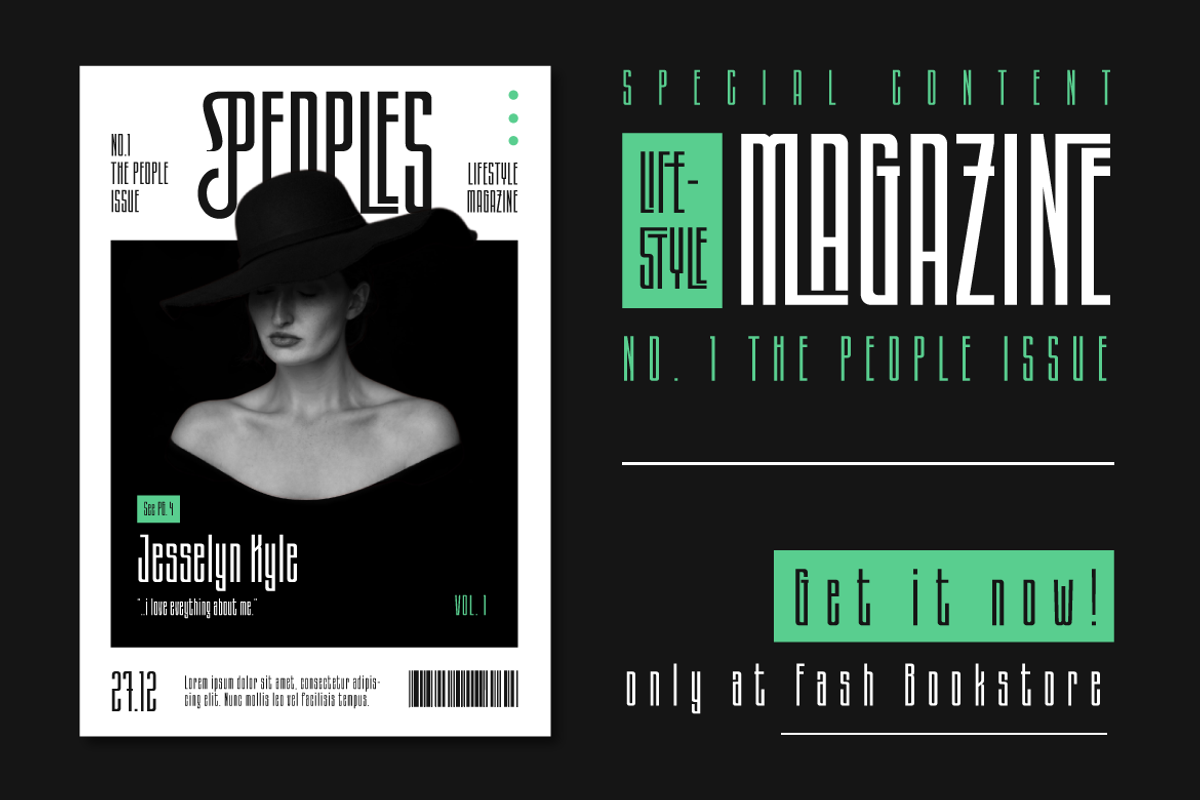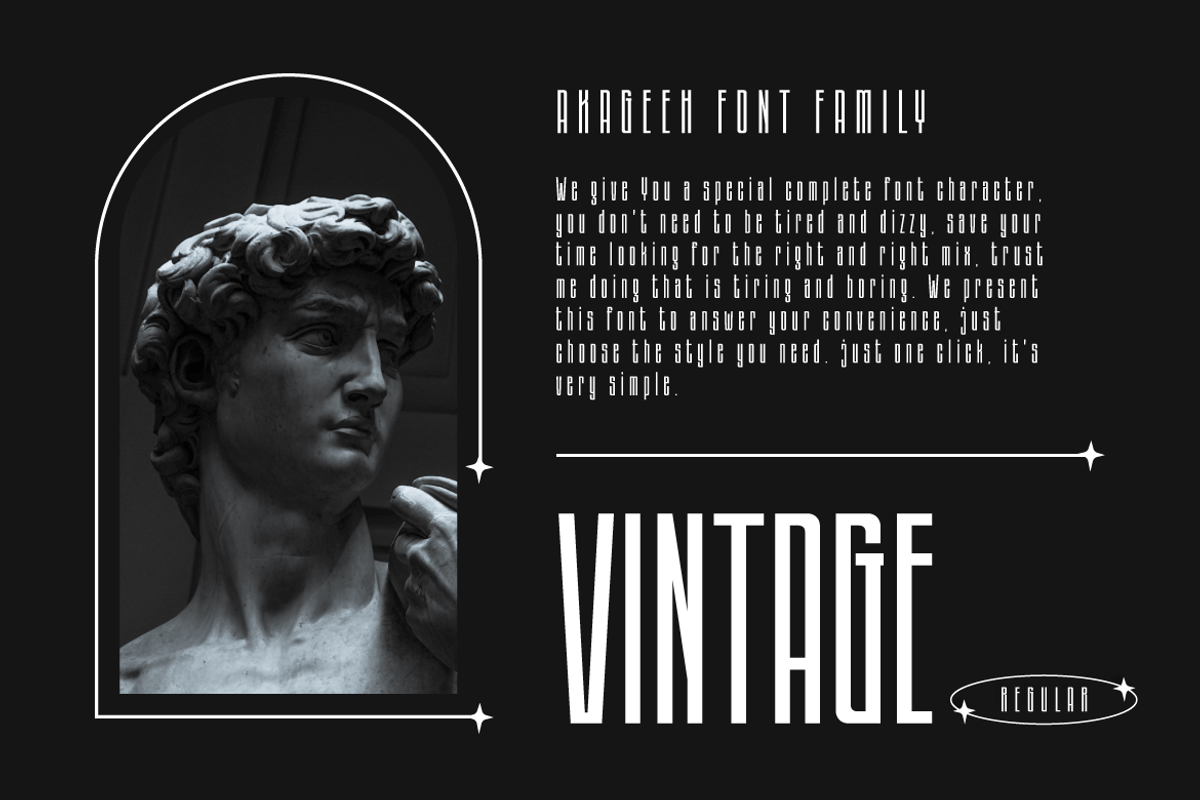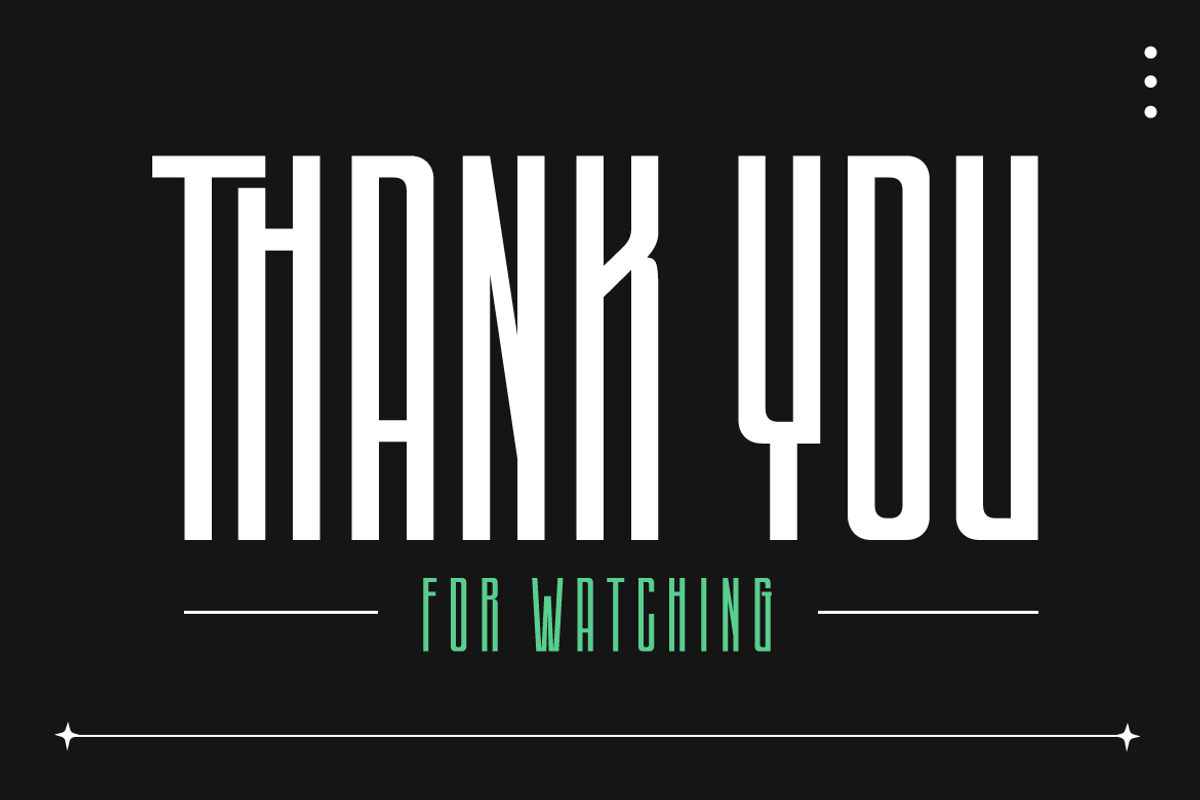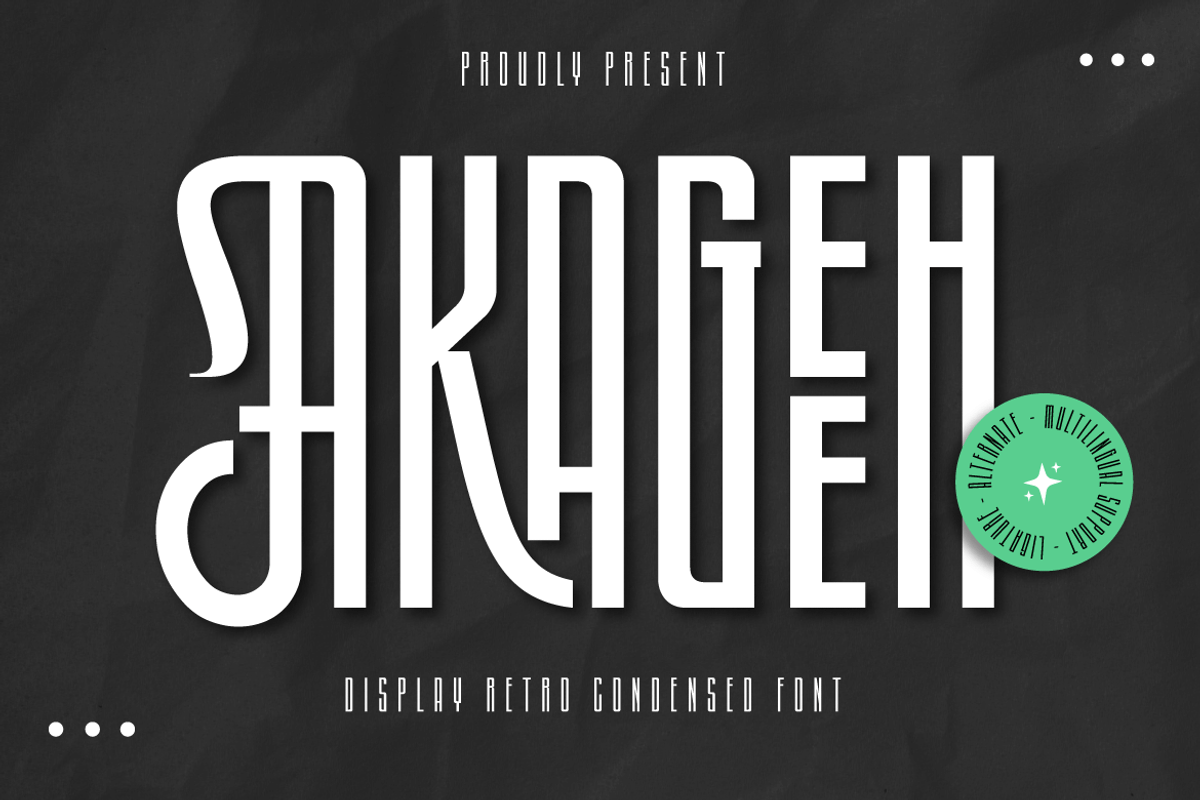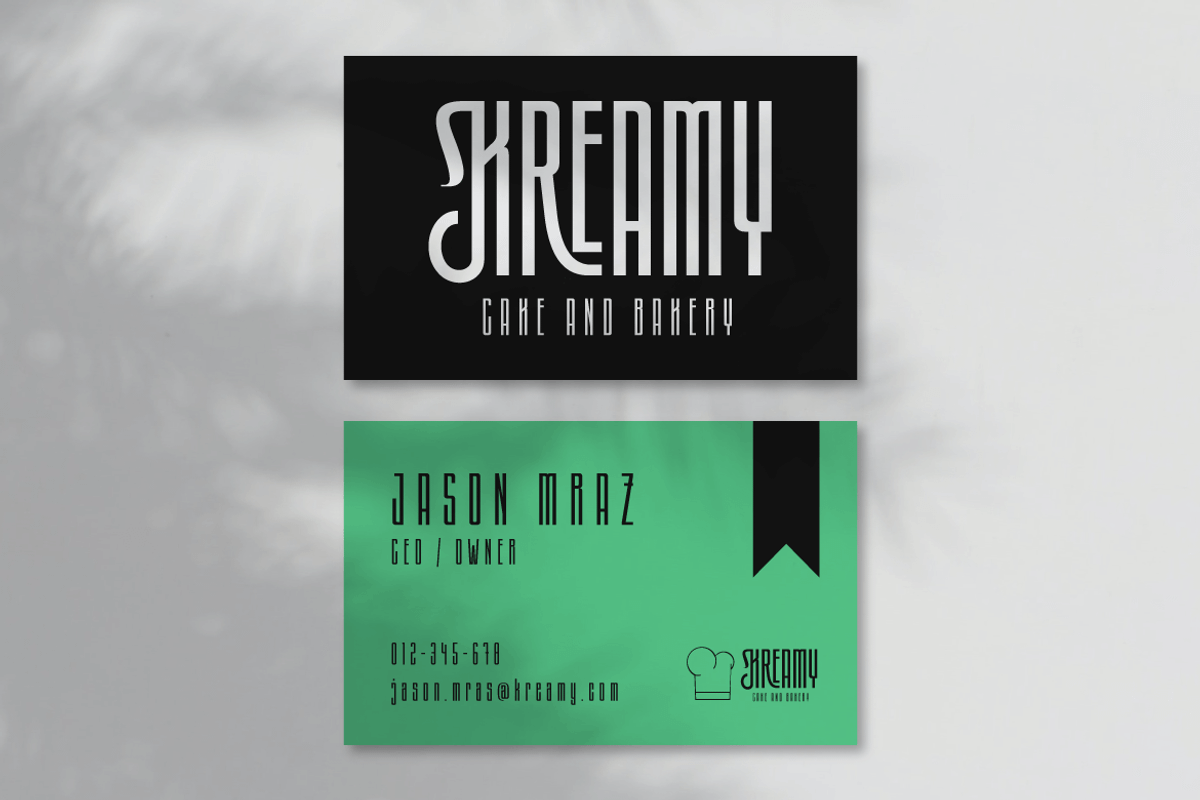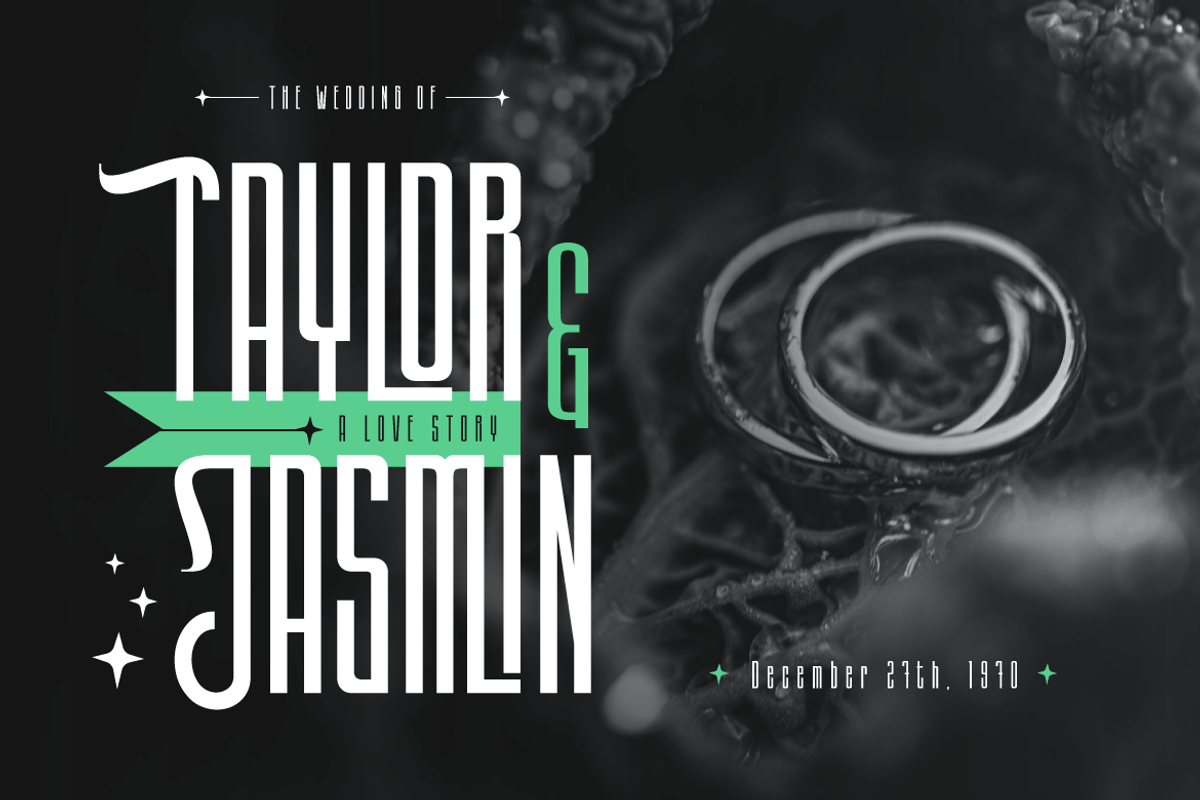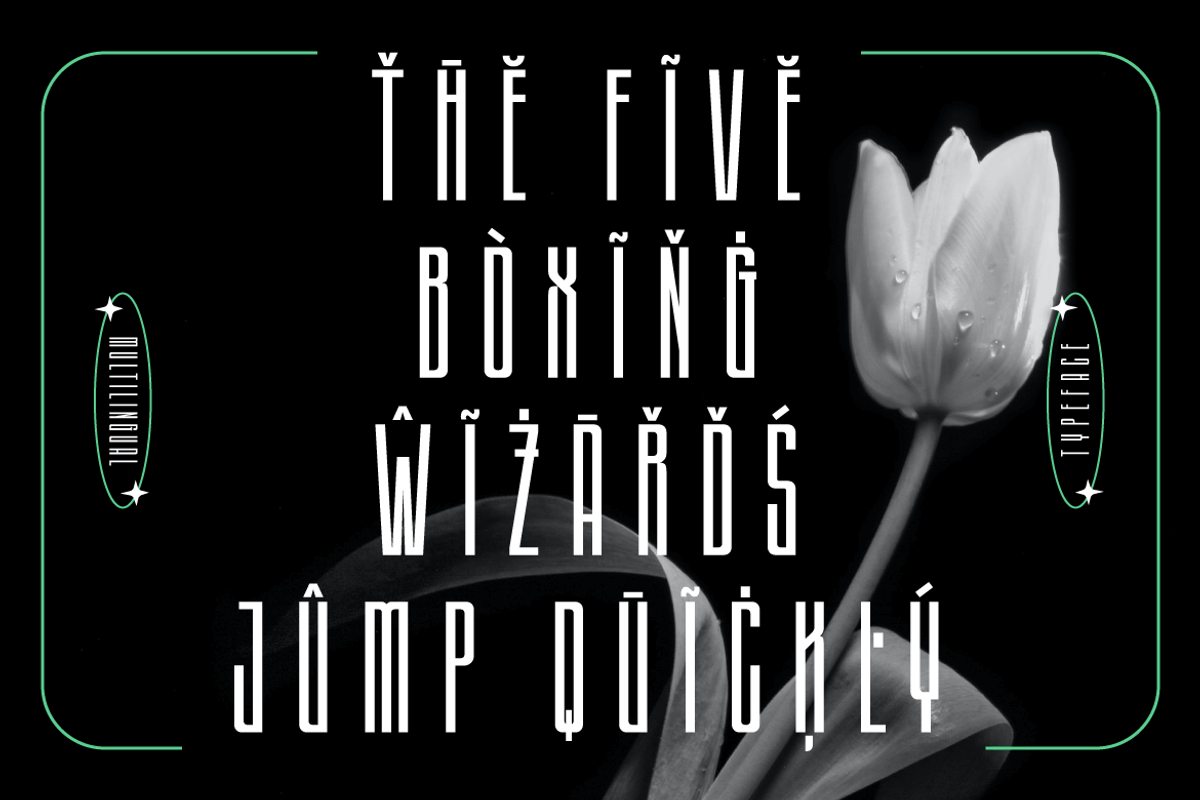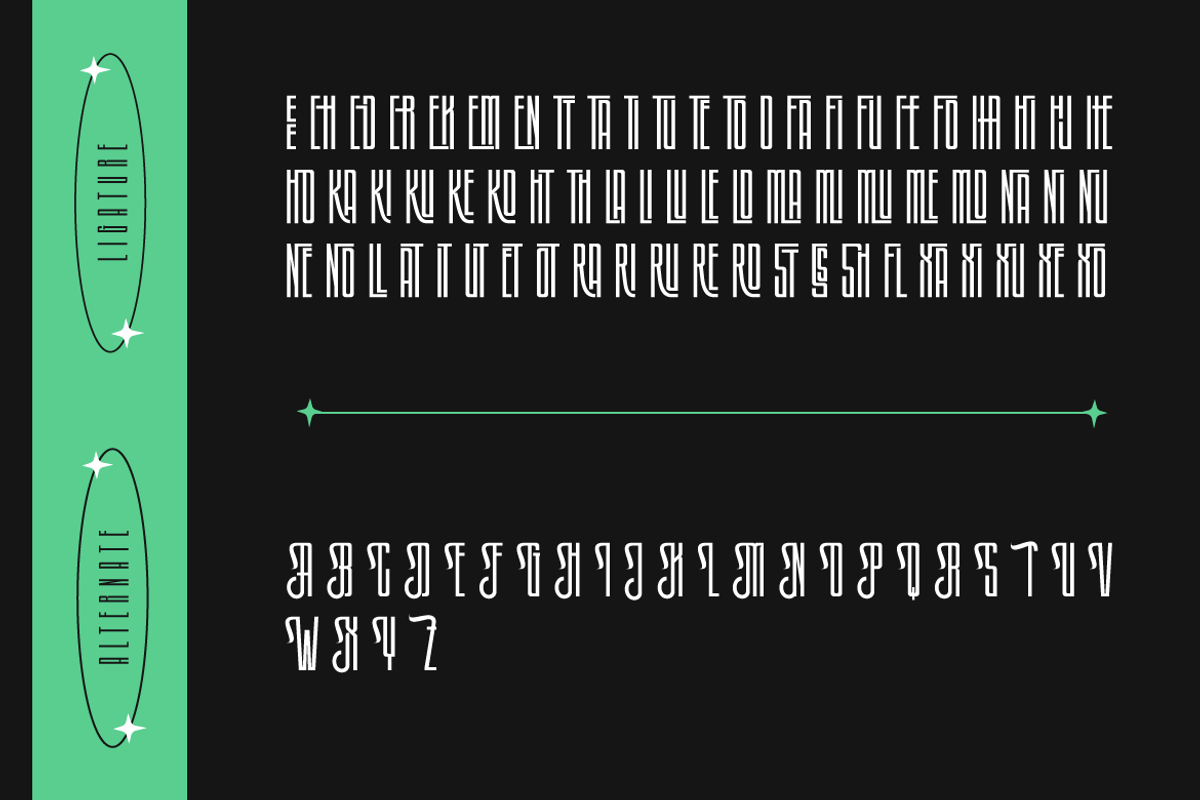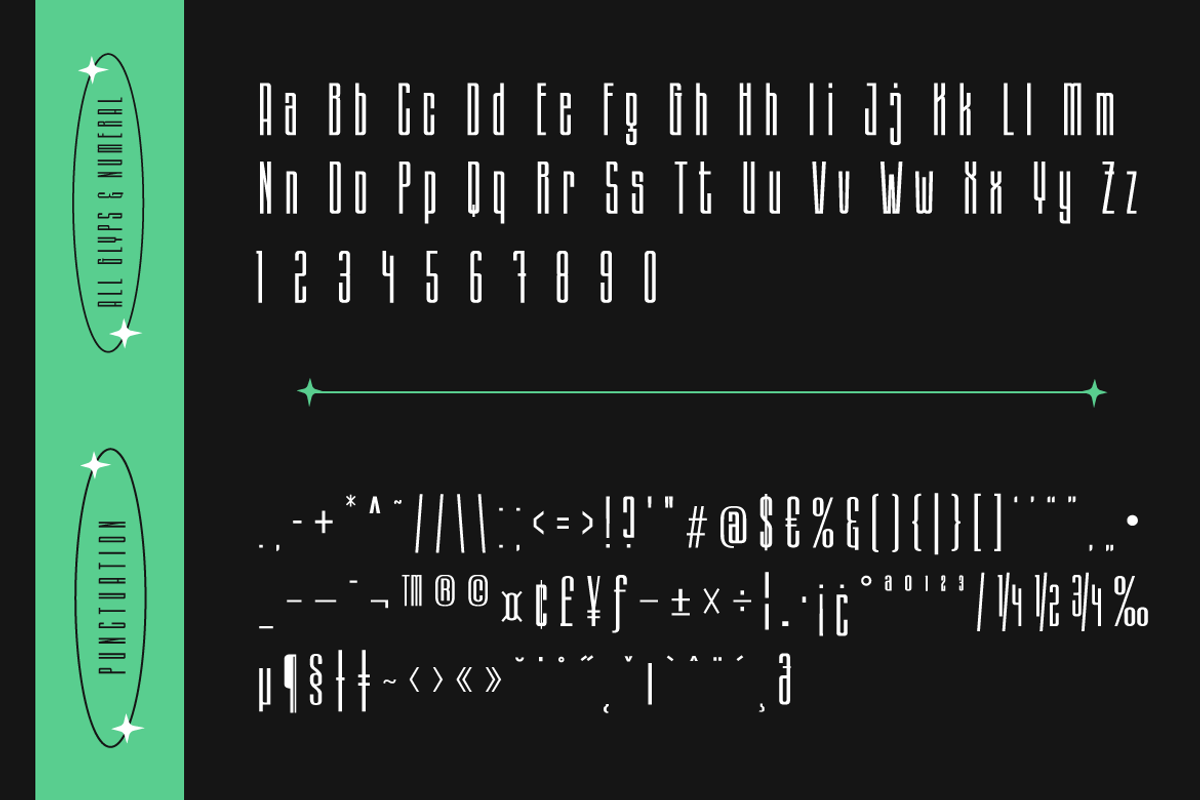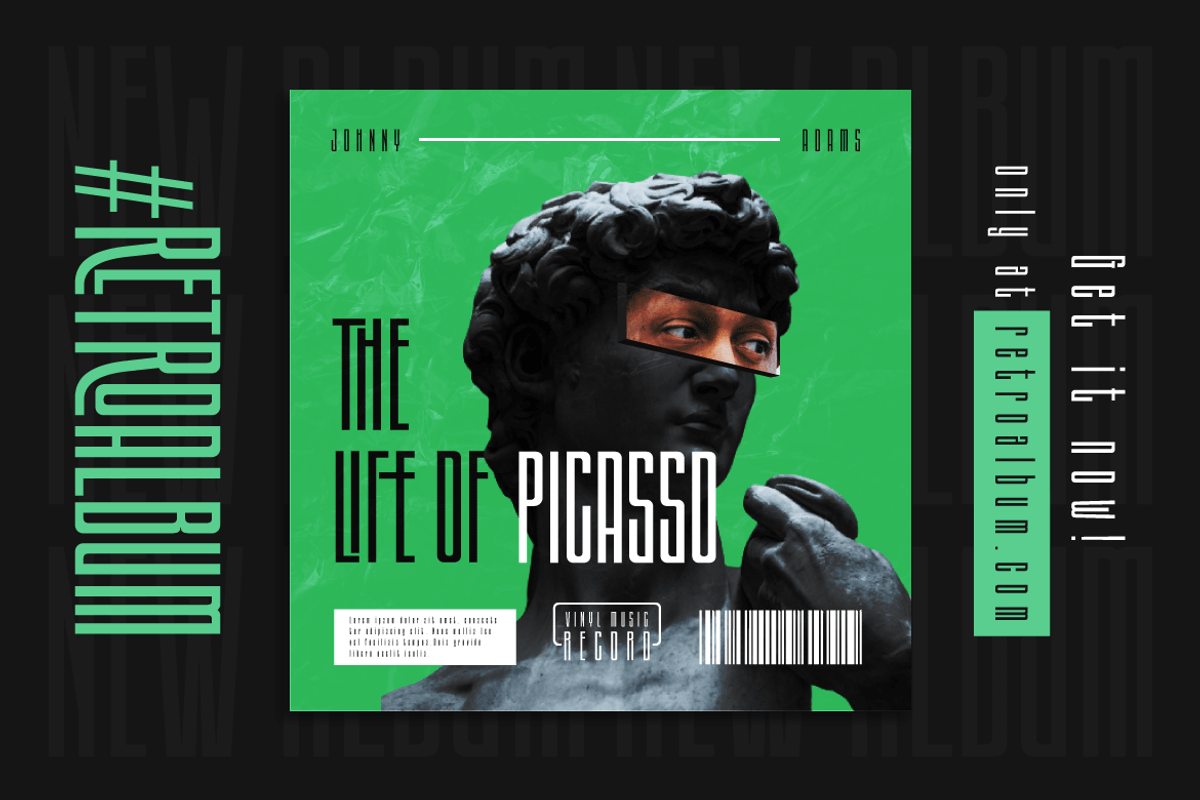
AKAGEEH | Retro Condensed Font
We are pleased to present Akageeh Retro Condensed Sans, a contemporary, elegant, and bold font. Your projects will have a timeless, refined, and contemporary feel thanks to this font. This font is excellent for branding and logo design.
Akageeh is a lovely option to add elegance to your designs because of this font’s special qualities, which include ligatures, alternatives, and many others. You can play around with this font easily to produce fancy designs.